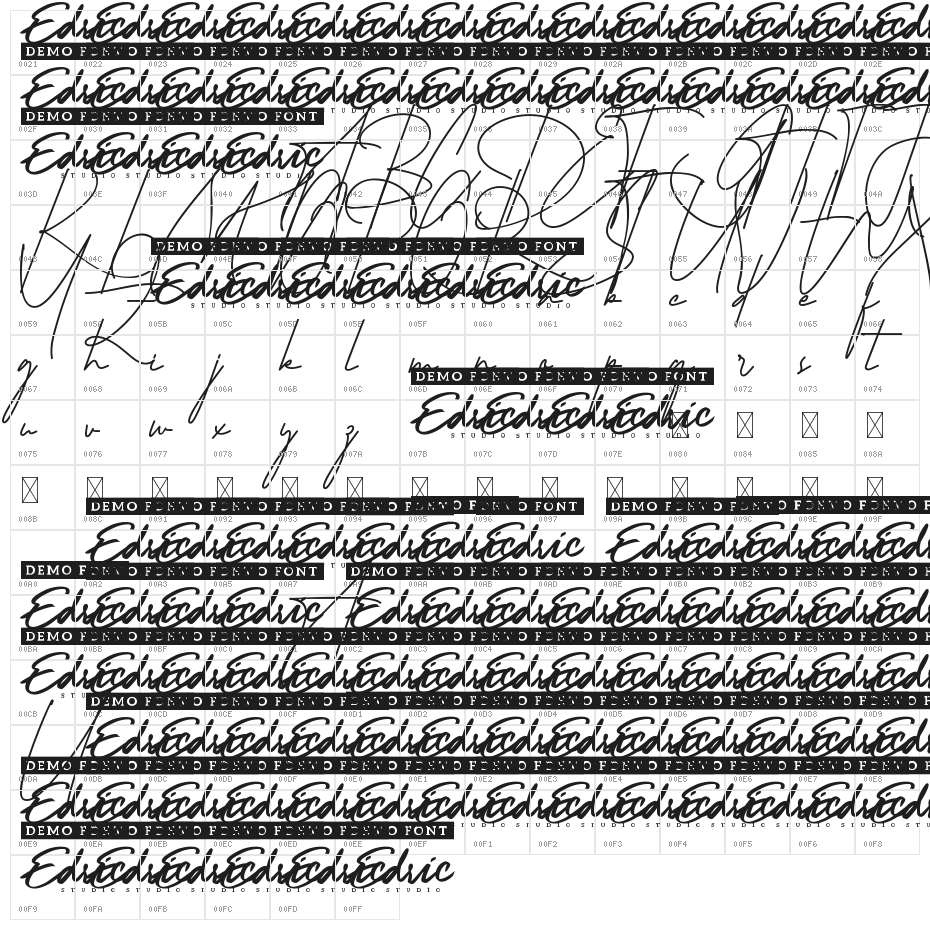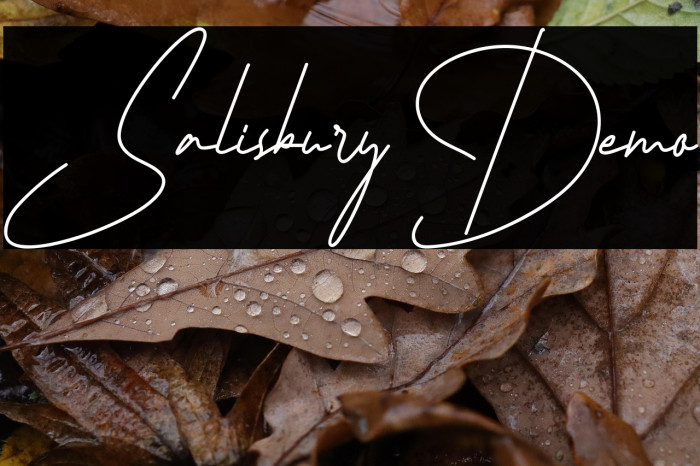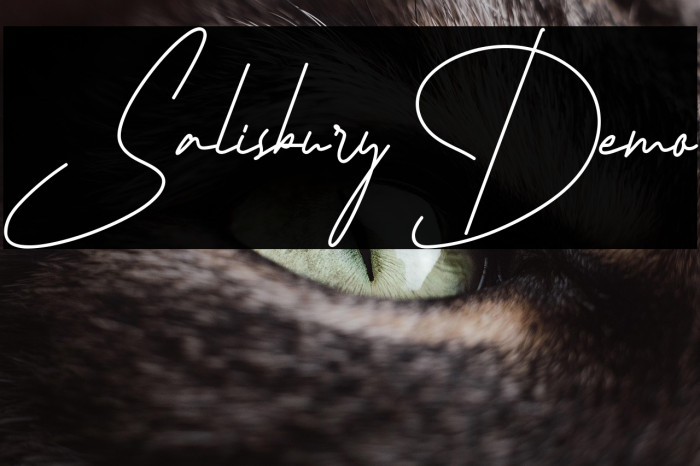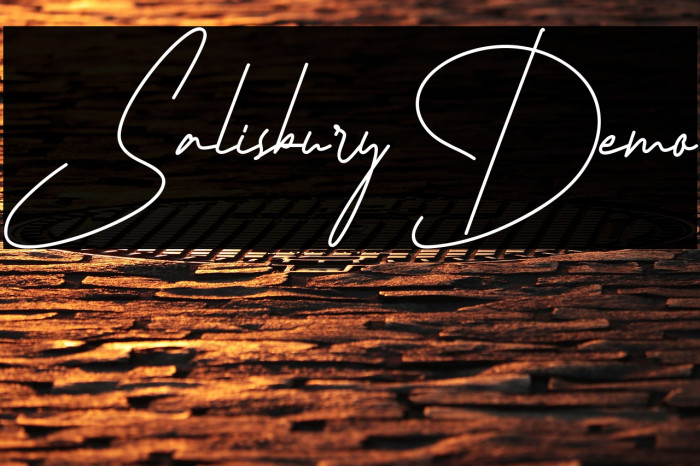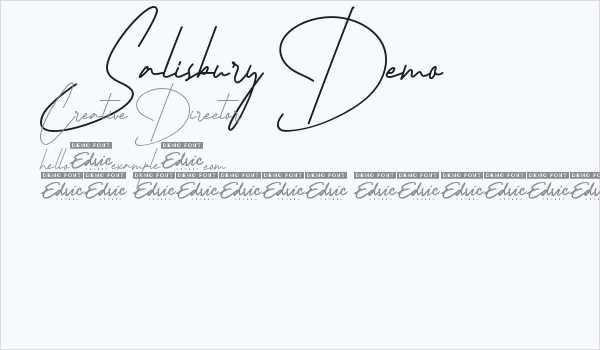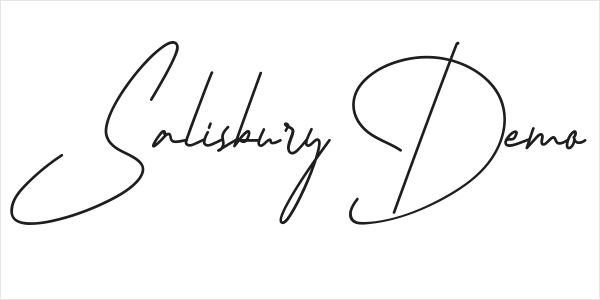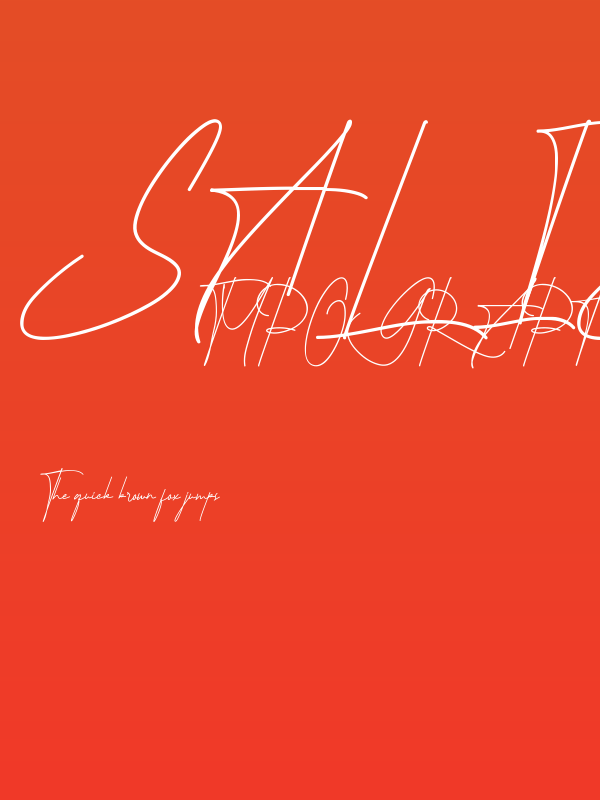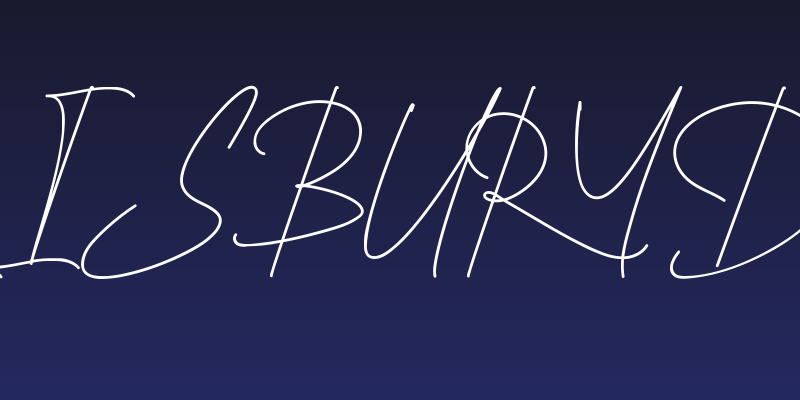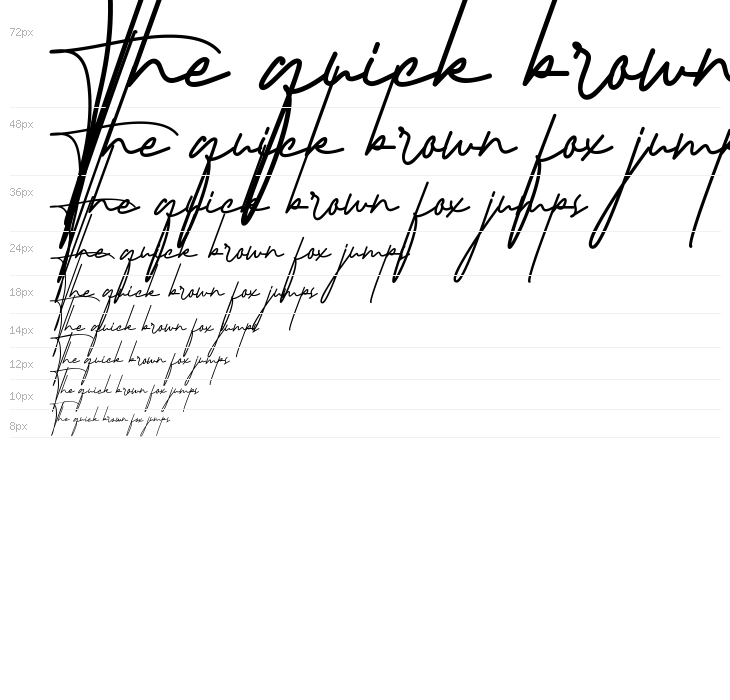
Salisbury Demo Font
Salisbury Demo Description
This font features a dynamic and expressive script style, characterized by its fluid and elegant strokes. The uppercase letters exhibit a graceful, flowing form, while the lowercase letters maintain a consistent and harmonious appearance. The overall design is reminiscent of traditional calligraphy, with a modern twist that adds a touch of sophistication. The characters are well-balanced, with a slight slant that enhances the handwritten feel. This font is perfect for projects that require a personal and artistic touch, such as invitations, greeting cards, and branding materials.